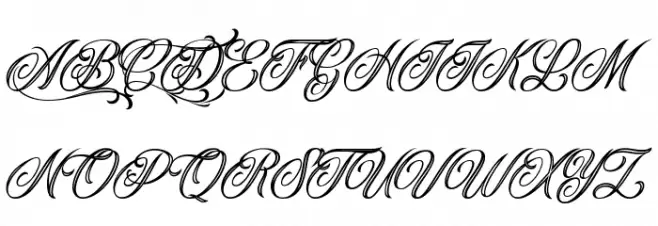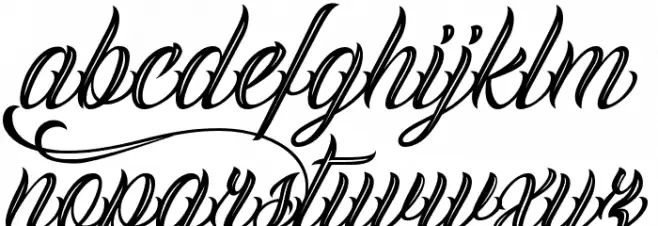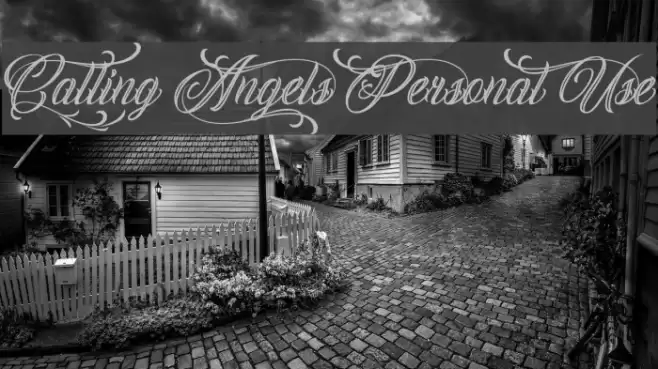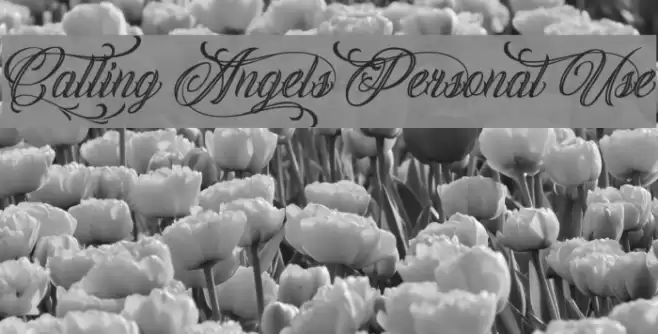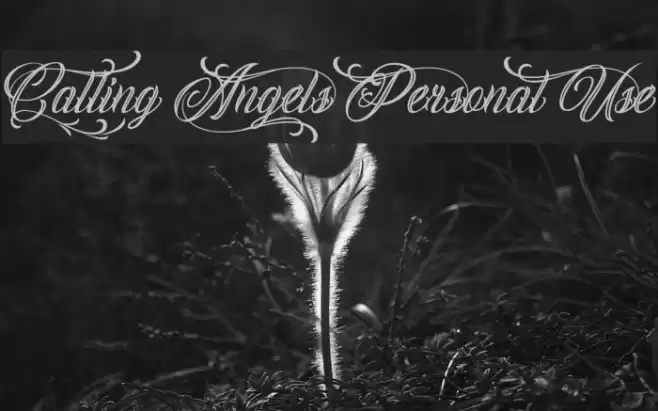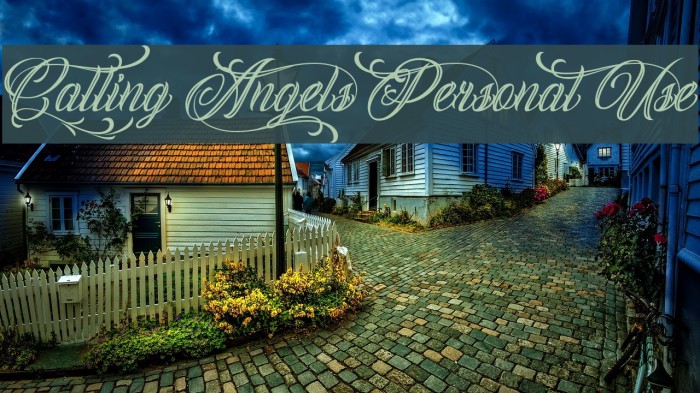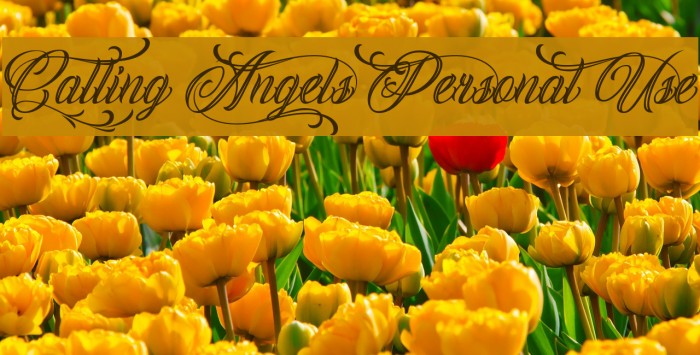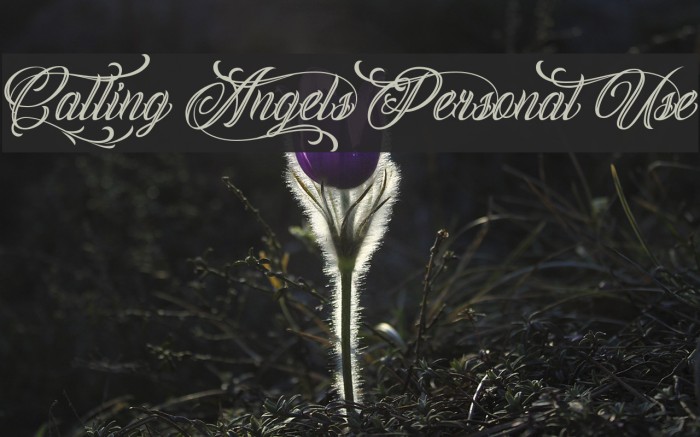
Calling Angels Personal Use
This font features an elegant and ornate script style, characterized by its flowing, interconnected letters and decorative flourishes. The uppercase letters are particularly elaborate, with intricate loops and swirls that give a sense of sophistication and grace. The lowercase letters maintain a consistent style, with smooth curves and a slight slant that enhances readability while preserving the decorative nature. The font includes a full set of numerals and a selection of special characters, all designed to complement the overall aesthetic. Its high contrast between thick and thin strokes adds to its dramatic appearance, making it suitable for formal and artistic applications.
An elegant and ornate script font with flowing, interconnected letters and decorative flourishes.
- Proposed Projects: Ideal for wedding invitations, elegant branding, artistic posters, and decorative certificates.
- Category: Script
- Contrast: High
- Overall Style: Decorative